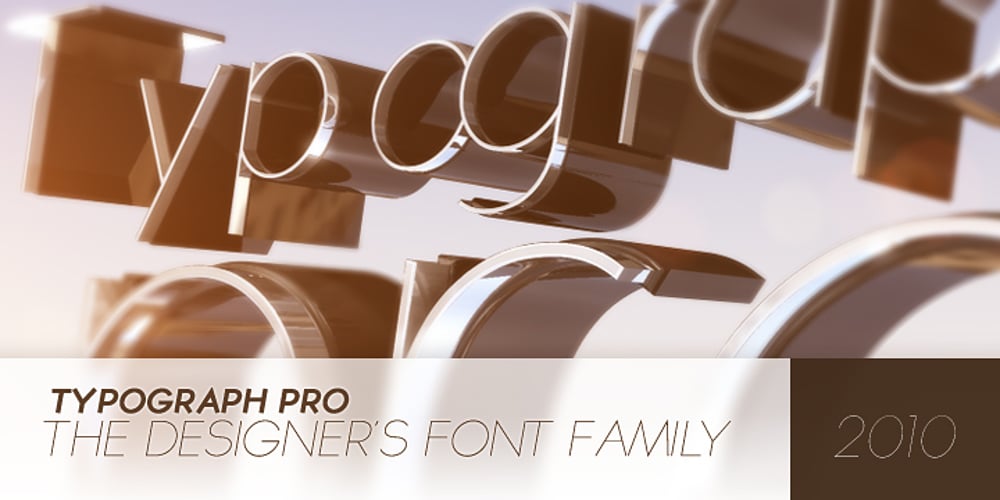
Typograph Pro
Typograph Pro font
Typograph Pro Font Family was designed by Aleksandar Petkov Aleksandrov and published by Aleksandar Aleksandrov. Typograph Pro contains 7 styles and family package options. Note: The ‘Pro’ in the name of this font should not be interpreted as having OpenType features. It has none. What was the inspiration for designing the font? Inspired from the basic shapes like circle, cube and triangle. Closer to basics means more useful in various projects. What are its main characteristics and features? Clean graphic shapes. Usage recommendations: Graphic design, Motion design, 3D, Posters, Magazine covers, Outdoor. See Typograph Pro in action:http://www.amateurmedia.net/typographpro/